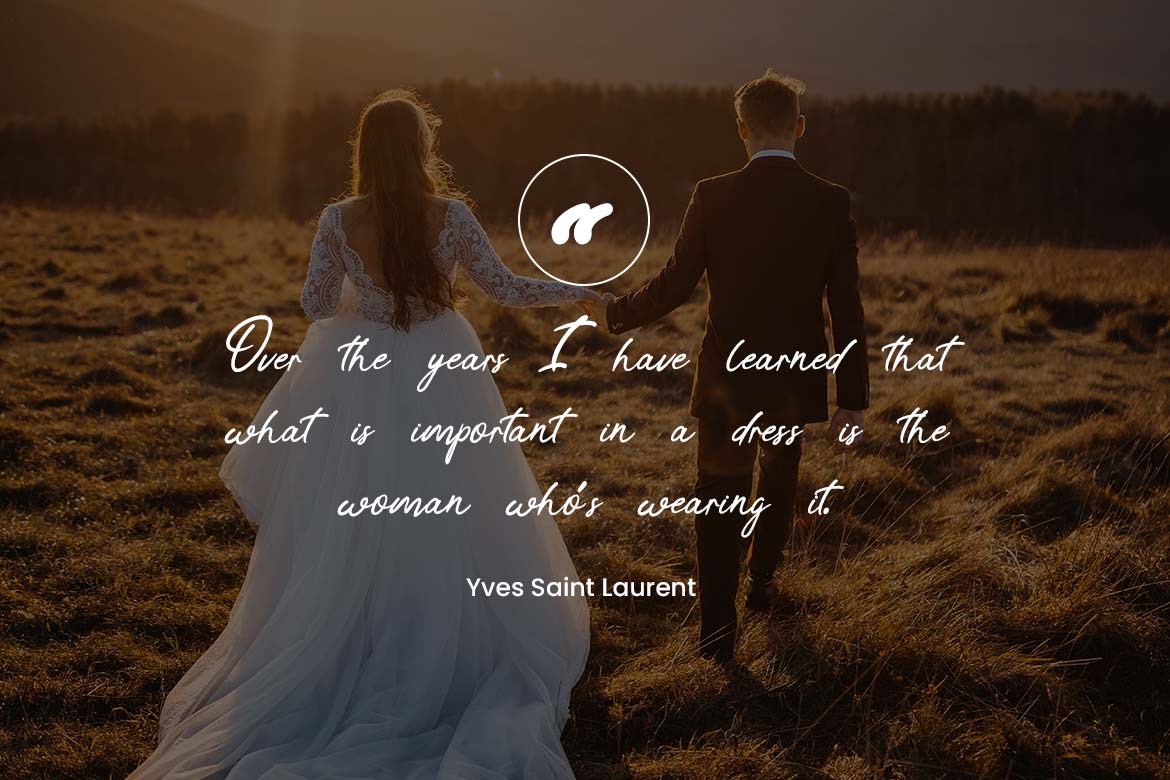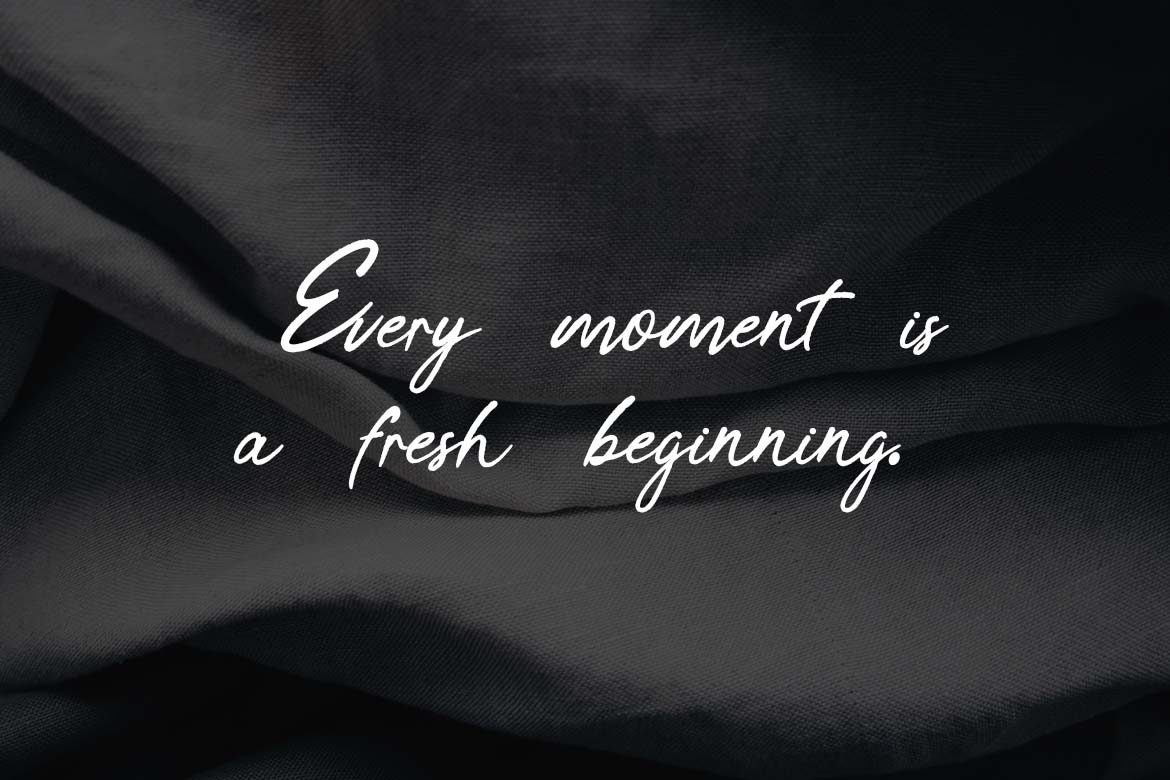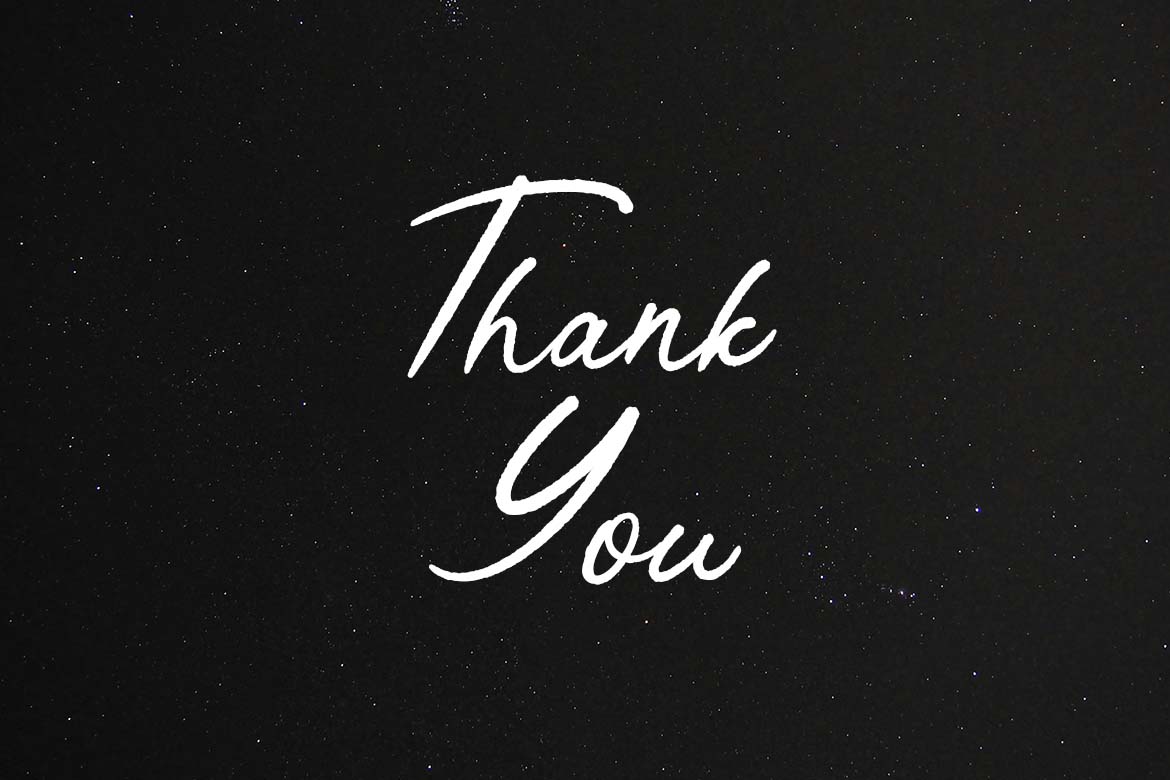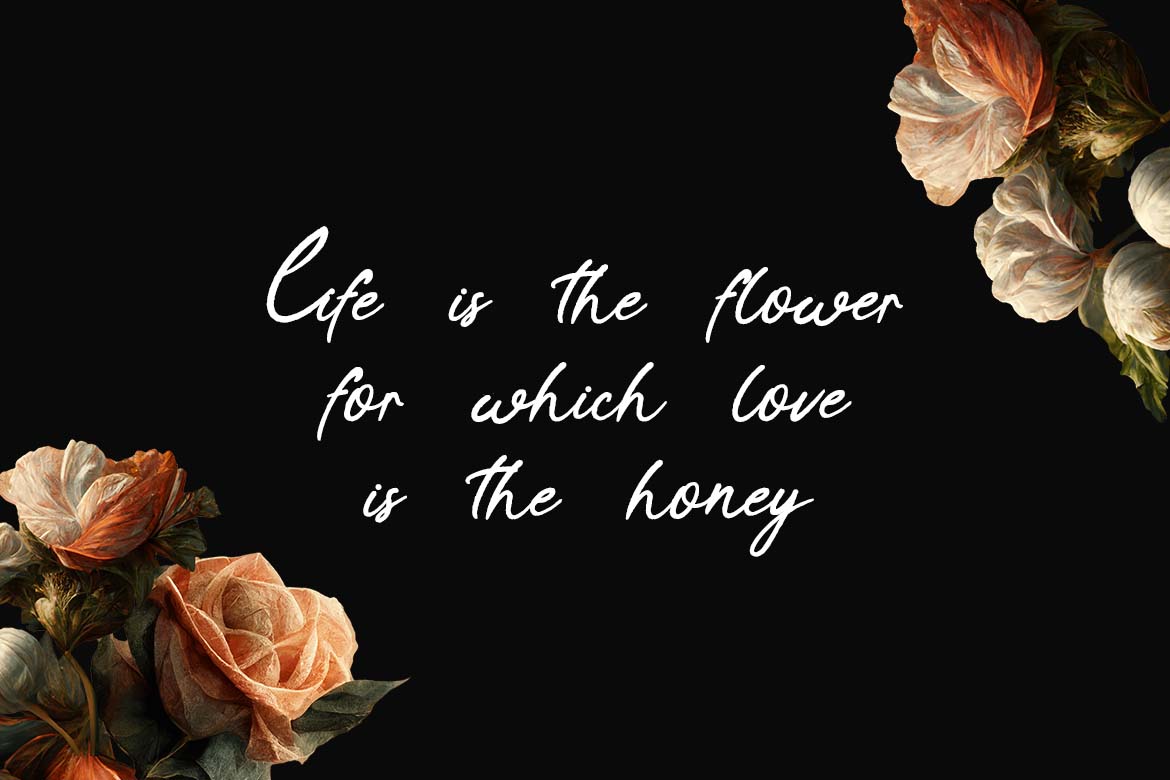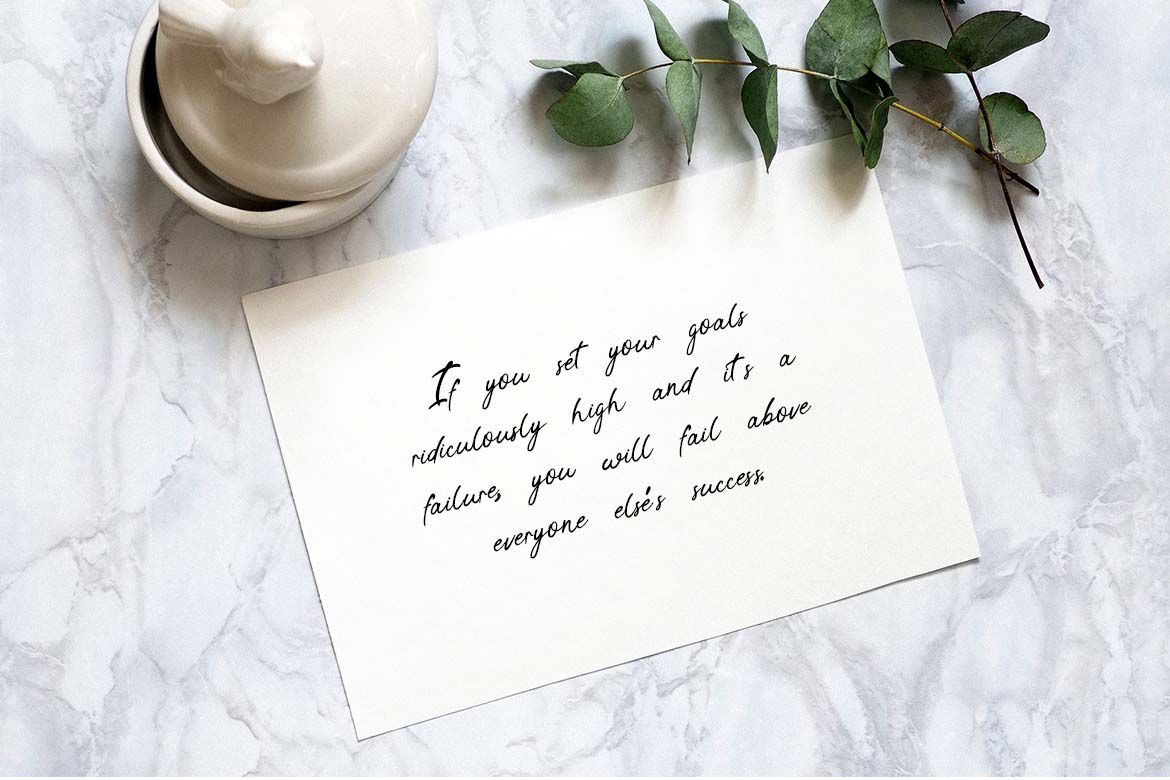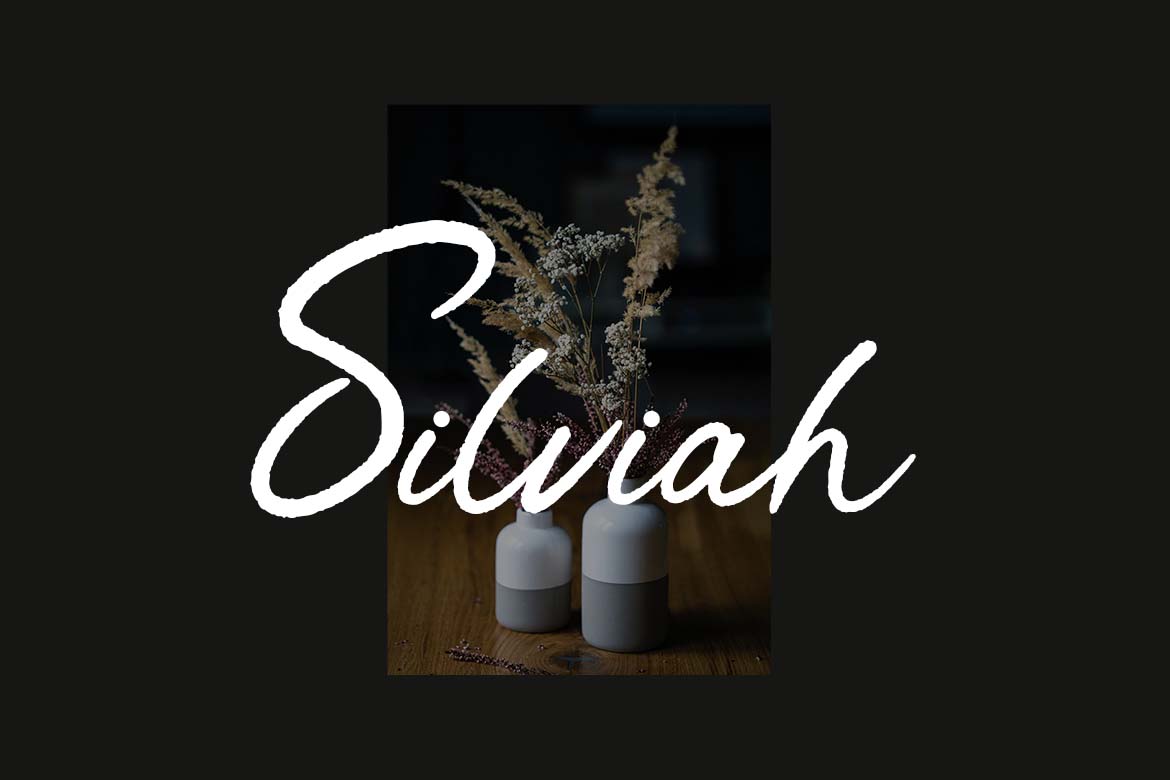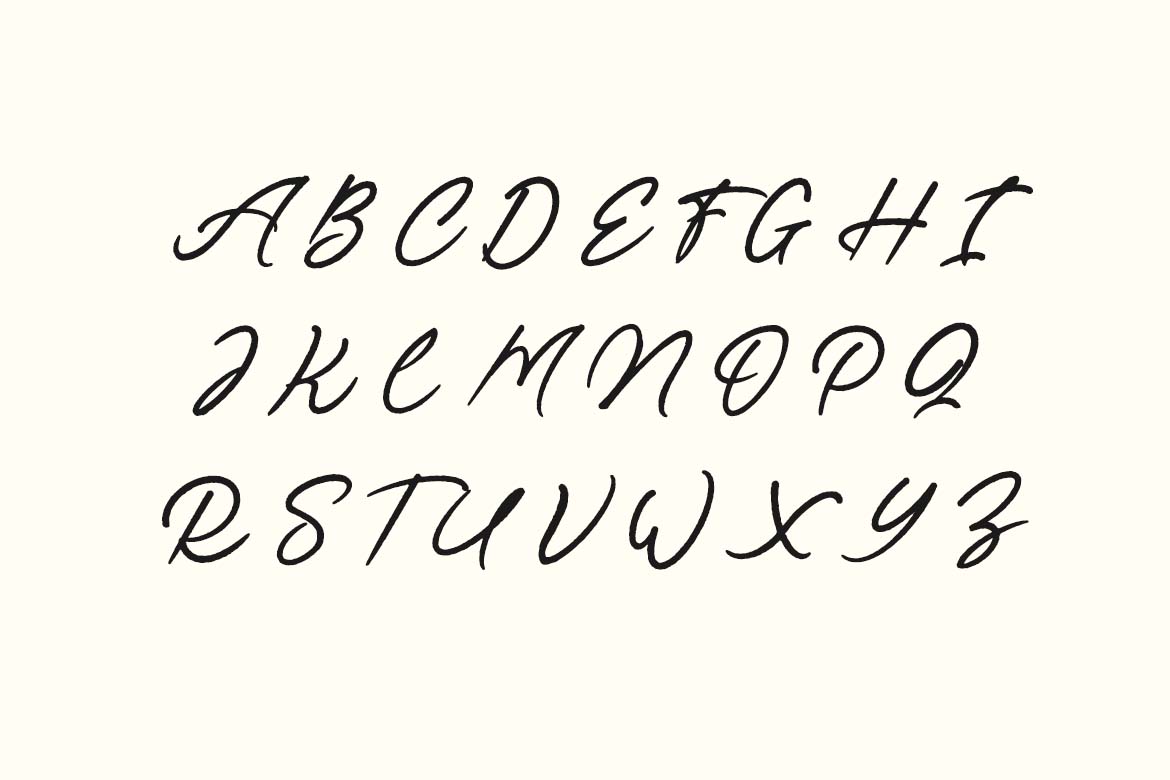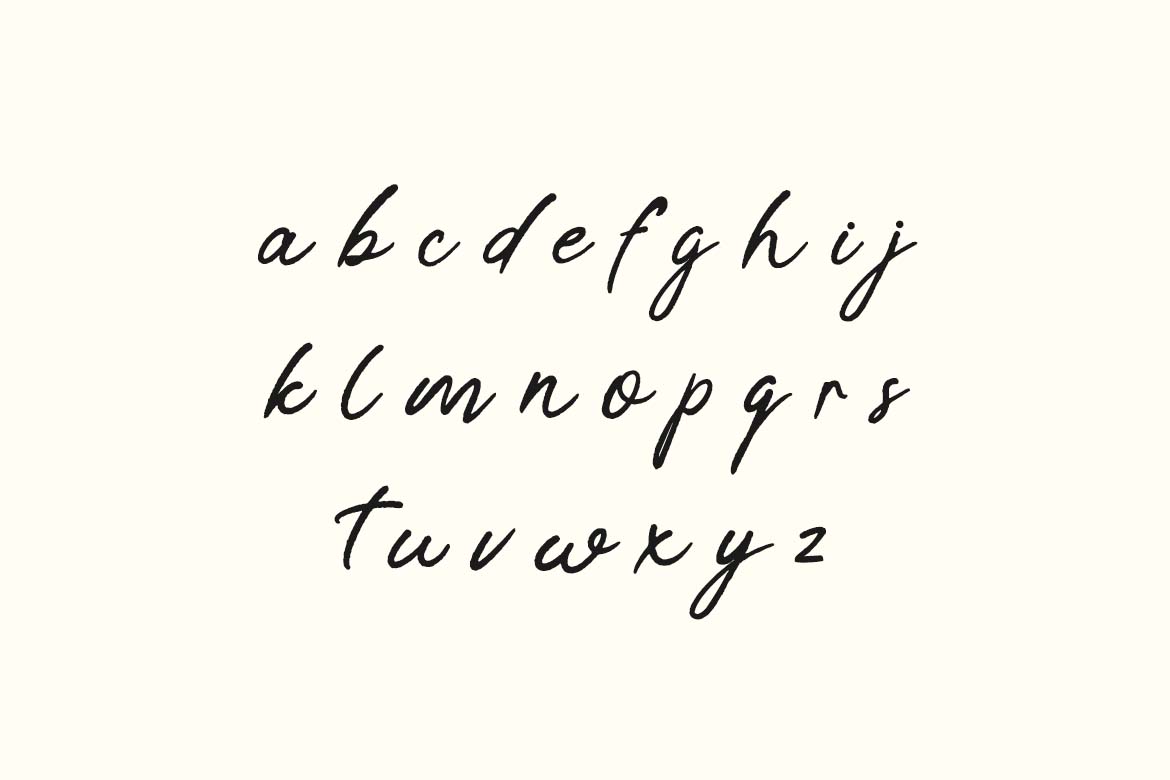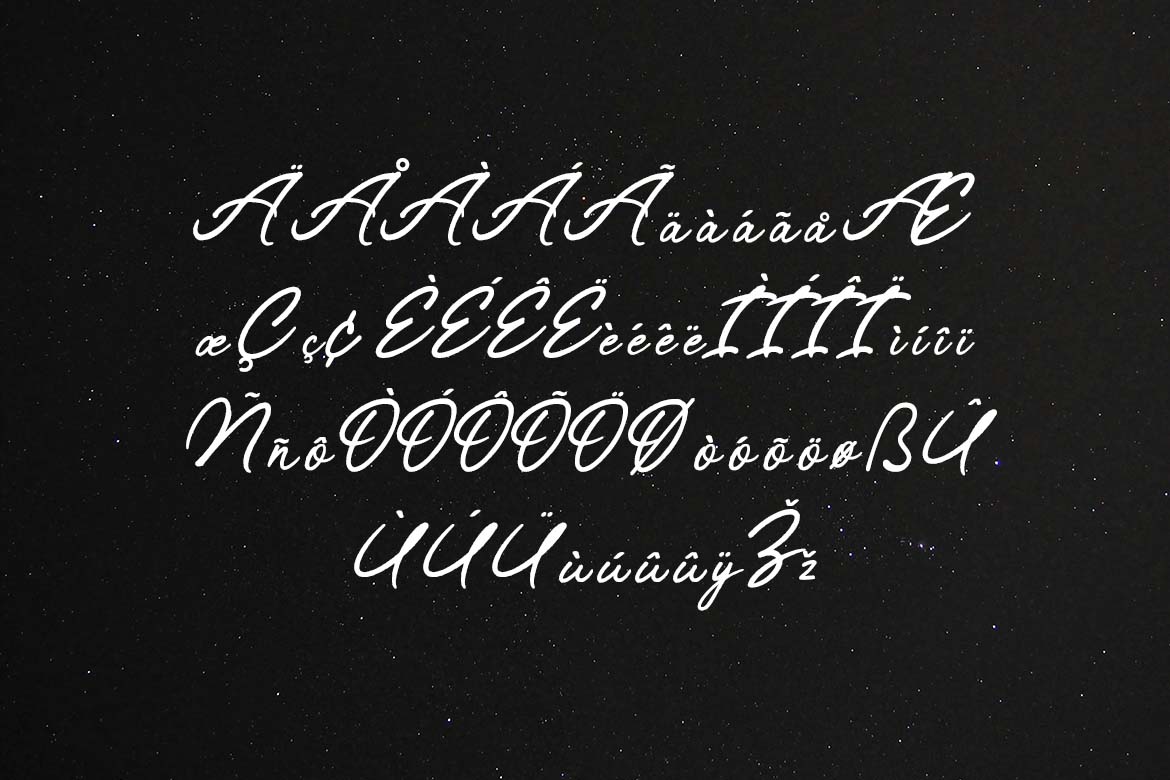
Tropical Streamline Romantic Handwritten Font
Tropical Streamline Romantic Handwritten Font. The modern display font feels beautiful classy, elegant, and stylish. This font is ideally suited for a wide variety of projects, such as signature, stationery, logo, wedding, typography quotes, magazine or book covers, website headers, branding, and more. Also, fashion-related branding or editorial design displays both masculine and feminine qualities.